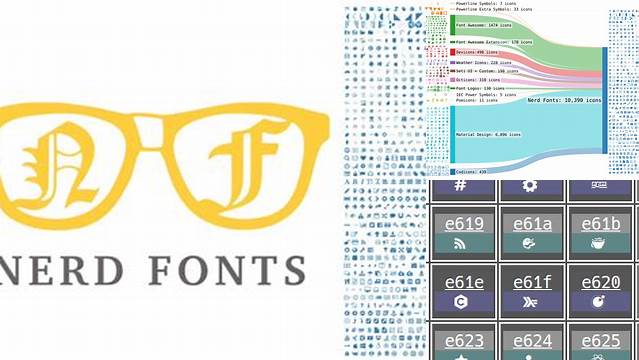
Nerd Fonts On Windows: A Guide To Awesome Terminal Icons
Are you a Windows user who loves the command line and wants to jazz up your terminal with cool icons? Well, you're in luck! This guide will walk you through the process of installing and using Nerd Fonts on Windows, allowing you to transform your drab terminal into a visually appealing and functional powerhouse. We'll cover everything from what Nerd Fonts are, how to install them, and how to configure your favorite terminal emulators to display those awesome icons. So, get ready to level up your terminal game, guys!
What are Nerd Fonts?
Nerd Fonts are essentially patched fonts that include a massive collection of glyphs and icons from various popular icon sets, such as Font Awesome, Material Design Icons, and many others. These fonts take existing fonts and add a bunch of extra characters, including a wide variety of symbols and icons specifically designed for developers. Think of it as giving your terminal a complete visual makeover, with symbols representing files, folders, programming languages, and other useful elements. This can significantly improve readability and make it easier to navigate your file system and projects. Imagine seeing a little Git icon next to your .git directory or a Python icon next to your .py files; it's a game-changer! This visual enhancement can drastically improve your workflow, making it easier to quickly identify files and folders, and making your terminal look a whole lot cooler. These fonts are incredibly popular among developers, system administrators, and anyone who spends a significant amount of time in the terminal. These fonts are compatible with a variety of terminal emulators, code editors, and IDEs, making them a versatile choice for anyone looking to customize their development environment. The idea behind Nerd Fonts is simple: to provide a visually richer and more informative terminal experience. By replacing text-based representations of files, folders, and other elements with easily recognizable icons, these fonts make it easier to quickly understand your projects and navigate your file system. Ultimately, Nerd Fonts are all about making your terminal a more productive and enjoyable place to work. They help you stay organized, improve your focus, and express your personality.
Customizing Your Terminal with Icons
Once you have Nerd Fonts up and running in your terminal, the real fun begins: customizing your terminal to make it more useful and aesthetically pleasing. One of the first things you can do is enhance your file explorer. In your terminal, you can use tools like ls (in Linux-based shells) or dir (in PowerShell) to list files and directories. When using a Nerd Font, these commands can display icons next to your files and folders, making it easier to visually differentiate between different types of files. You can also configure your shell prompt to display icons. Many shells allow you to customize the prompt to show Git status icons (branch name, changes, etc.), icons indicating the current directory, and other useful information. This can significantly improve your workflow, as you can see the context of your current working directory at a glance. If you're using Git, consider using a Git-aware shell, like Oh My Zsh or powerlevel10k, which are often designed to work seamlessly with Nerd Fonts. These frameworks provide themes with beautiful prompts that include Git icons, showing the status of your Git repository directly in your terminal. They typically have easy-to-install configurations. These shells offer a more visually rich and informative terminal experience, making it easier to track your Git changes, branch, and other details. Experiment with different prompts and themes to find one that suits your style and needs. Furthermore, you can customize your command aliases to include icons. For example, you can create an alias for cd to include a folder icon or ls to include file type icons. By incorporating icons into your aliases, you can create a more streamlined and visually informative terminal experience. These customizations will not only enhance your terminal's aesthetics but also improve your productivity. As you explore the capabilities of Nerd Fonts, you'll discover endless possibilities for customizing your terminal to suit your specific needs and preferences. Embrace the power of visual customization to create a terminal environment that is both functional and enjoyable to use.
Nerd Fonts are a fantastic way to enhance your Windows terminal experience. By adding visual elements, such as icons, you can improve readability, streamline your workflow, and make your terminal a more enjoyable place to work. Installing and configuring these fonts may seem daunting at first, but the process is quite simple. By following the steps outlined in this guide, you'll be able to transform your terminal into a visually appealing and functional powerhouse. Don't be afraid to experiment with different fonts, customize your terminal, and explore the wide range of icons available. Embrace the power of visual customization and create a terminal environment that perfectly suits your needs. So, go ahead, give your terminal a makeover, and enjoy the benefits of Nerd Fonts on Windows!